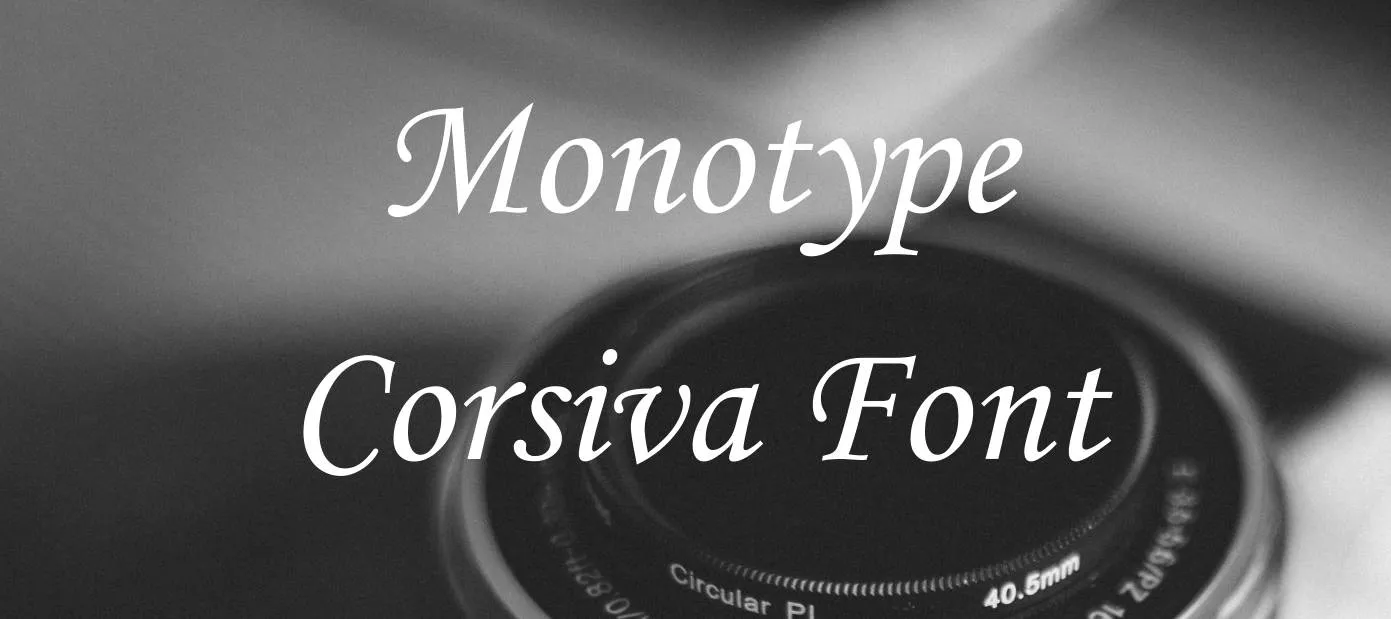
Monotype Corsiva Font Style
Monotype Corsiva Font Style - Monotype corsiva font family series mainly provide regular and other font styles. Installable on pc, mac, linux,. I'm not sure about what font it is but i assumed it as a monotype corsiva (please. Monotype corsiva is a typeface that exudes elegance with its flowing,. Discover the free monotype corsiva font at free font download !